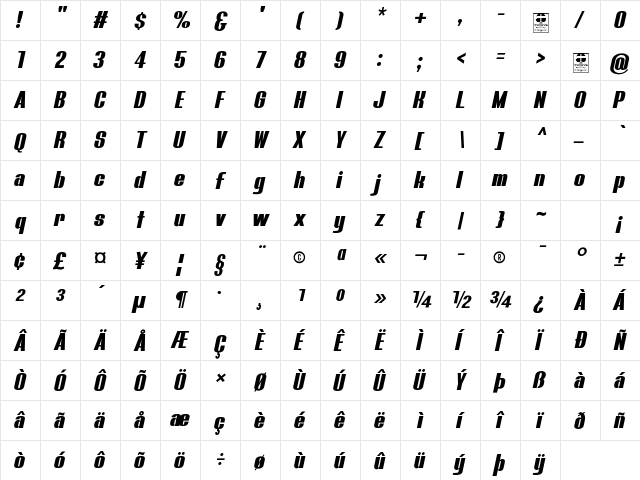
Bluefish Black Demo Italic
| Foundry | StudioTypo |
| Designer | Mehmet Abac |
Design Context for Bluefish Black Demo Typeface
Bluefish Black Demo is a composed and adaptable typeface that performs quietly and consistently across a wide range of design contexts. Its italic angle brings a sense of urgency and motion to the letterforms.